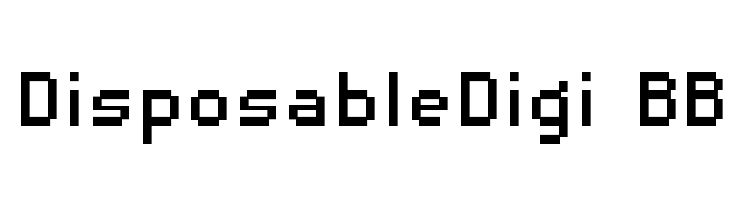
A pixelated, digital-style font with a retro, technological feel.
A bold, pixelated font with a retro digital style.
A bold, italicized digital-style font with a pixelated, geometric design.
A pixelated, italic font with a retro digital style.
A pixelated, retro digital font with a geometric and uniform style.
A bold, pixelated font with a retro digital aesthetic.
A bold, italicized font with a pixelated, digital aesthetic.
A pixelated, italic font with a retro digital aesthetic.